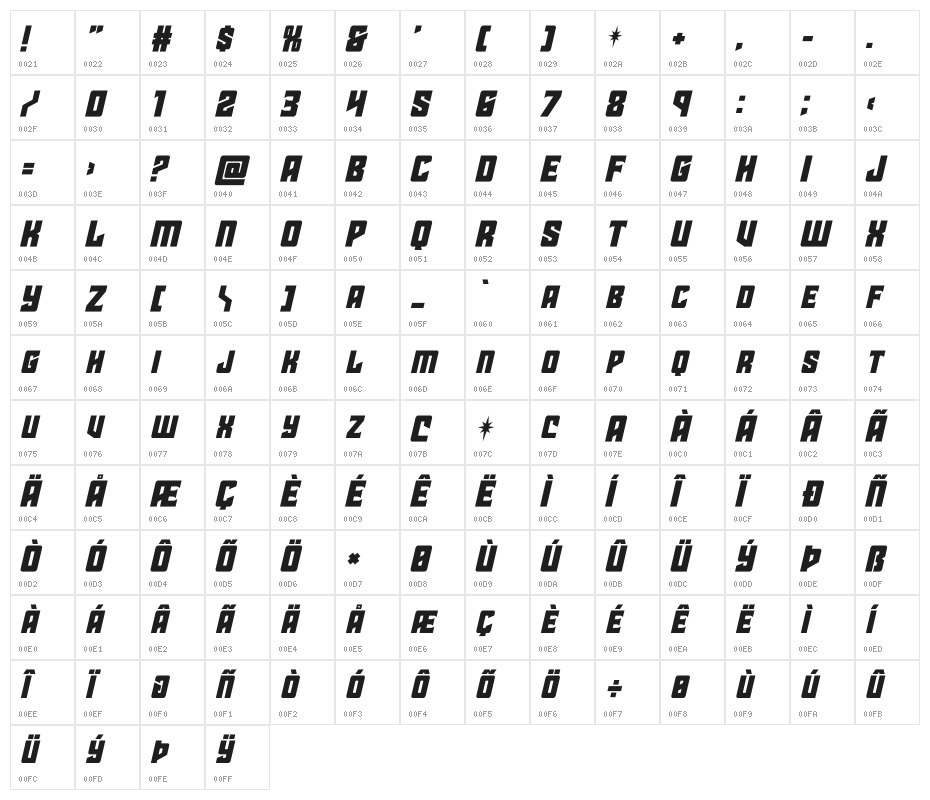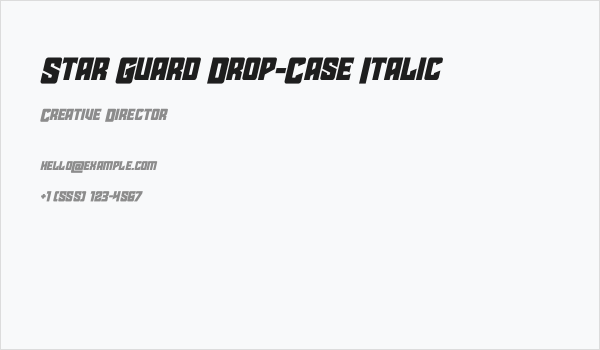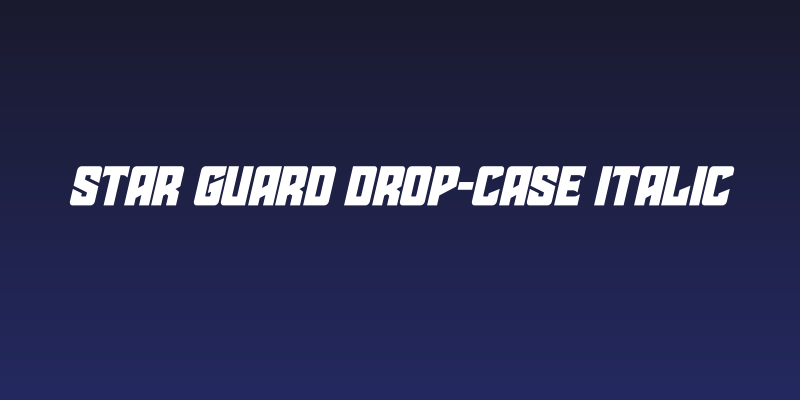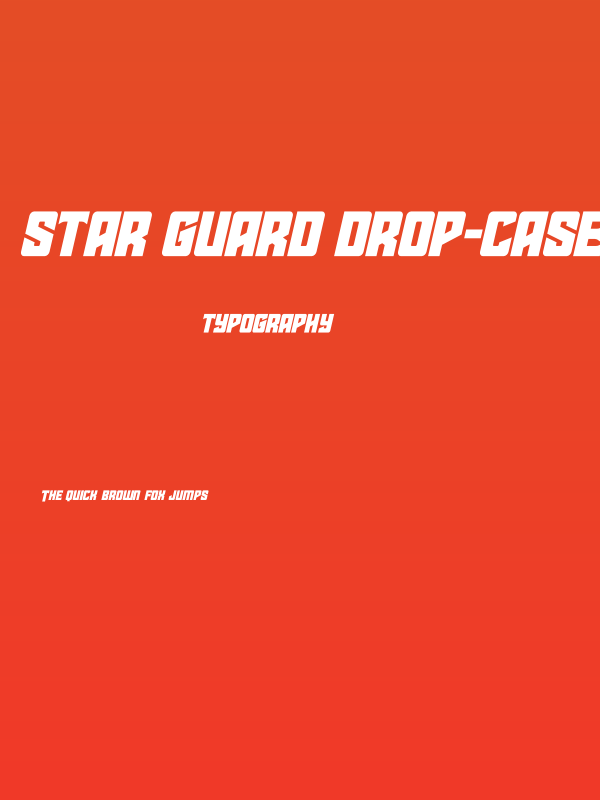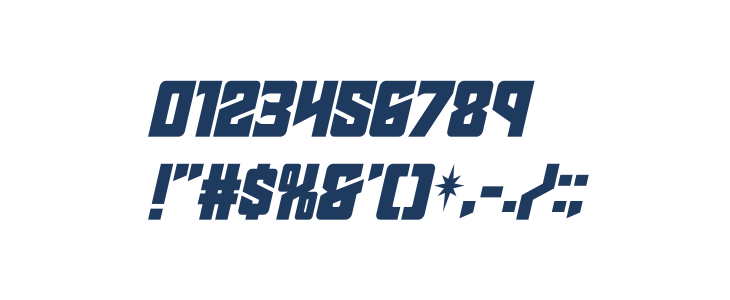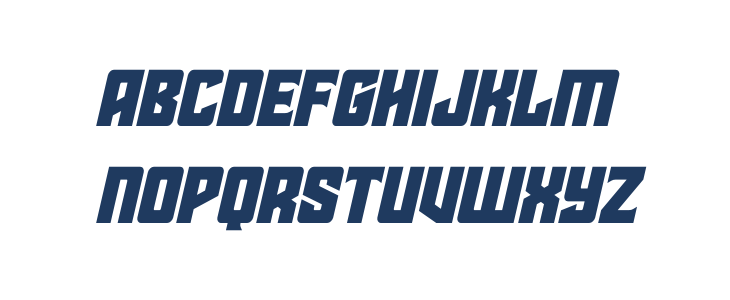
Star Guard Drop-Case Italic Font
Star Guard Drop-Case Italic Description
This font features a bold and dynamic style with a strong italic slant, giving it a sense of motion and energy. The characters are thick and angular, with sharp edges and a futuristic appearance. The uppercase letters are particularly striking, with a consistent height and width that create a uniform look. The lowercase letters maintain the same boldness and angularity, ensuring readability while retaining the font's unique style. Numbers and special characters are designed to match the overall aesthetic, with the same bold and angular features. This font is ideal for projects that require a modern and impactful look, such as sports branding, action movie posters, or video game titles.